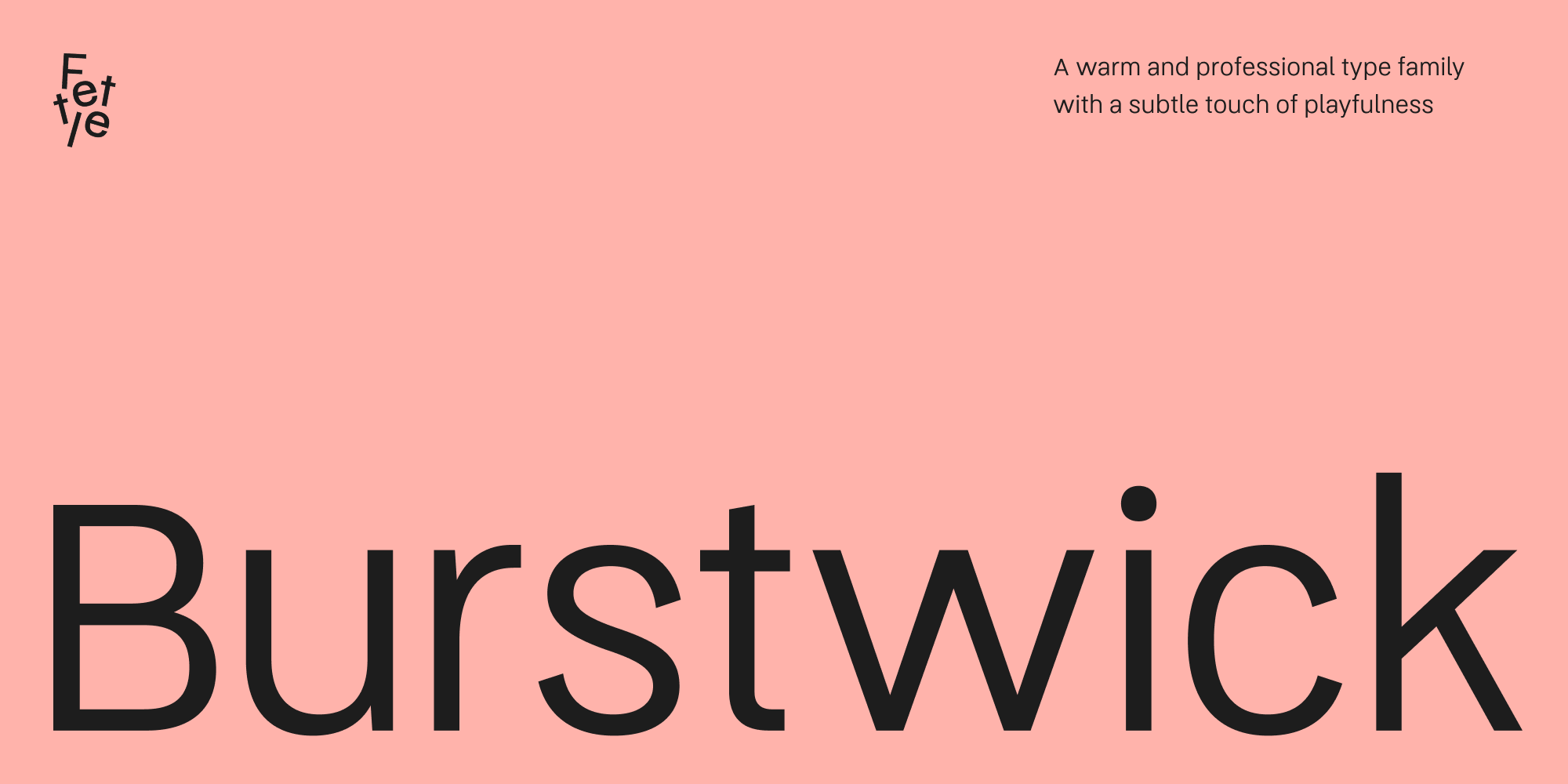
Burstwick
Burstwick is a sans serif font family. This typeface has twelve styles and was published by Fettle Foundry.
Burstwick is a modern sans-serif designed for boosting accessibility when used for websites and apps.
Burstwick features a large X-height, open counters, and spacing optimised for body text. Its design draws a lot of inspiration from Thorngumbald, one of Fettle Foundry’s most popular font families, however, Burstwick’s forms are designed to be more natural and versatile in how they approach accessibility, making it suitable for applications that demand a typeface that feels more neutral.
One of the guiding principles for Burstwick was to reject symmetry. For example, the top half of the lowercase c is noticeably narrower than the bottom half. These details aim to aid legibility and provide a subtle dynamism.
Burstwick supports numerous Latin languages and includes thorough kerning for accented character combinations, making it an excellent choice for organisations that cater to multilingual users. Furthermore, it offers a variety of special characters and alternatives to enhance flexibility and choice.
The font’s weights are structured around a core RIBBI system, with additional weights available for specific situations that may require a slight adjustment.